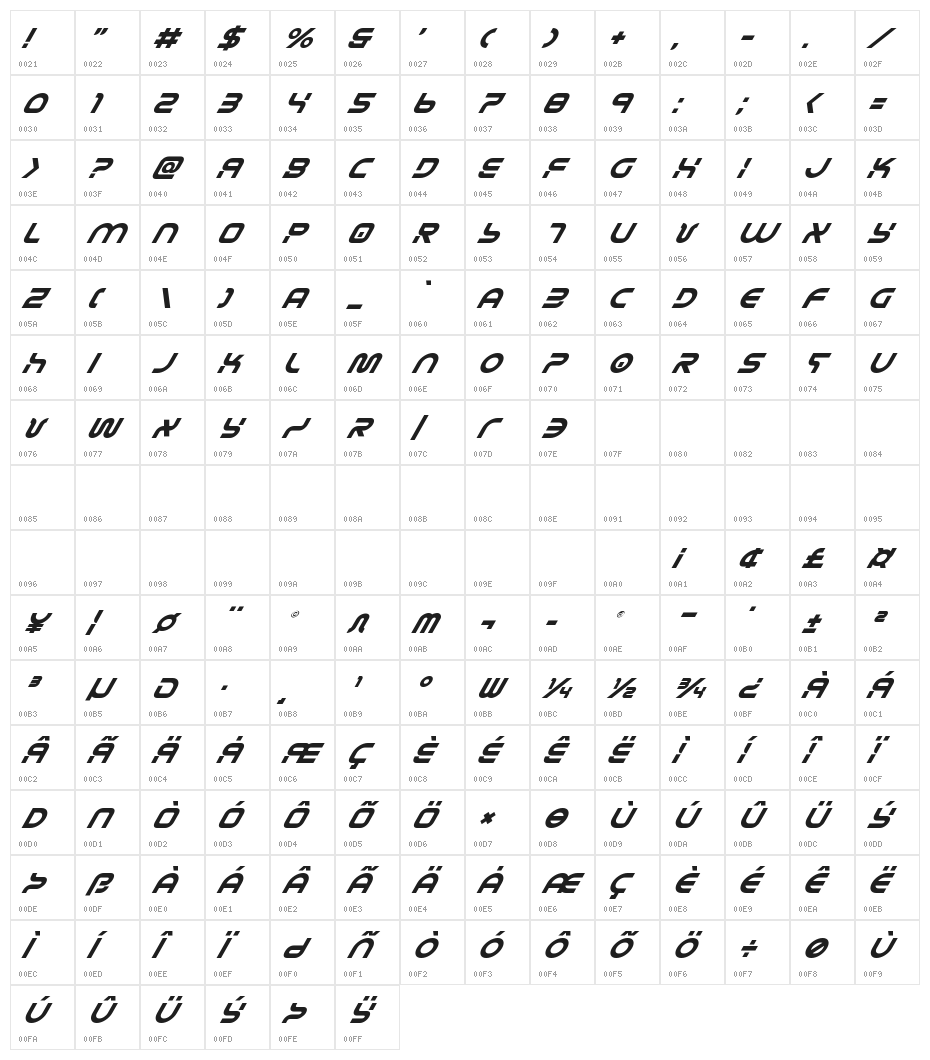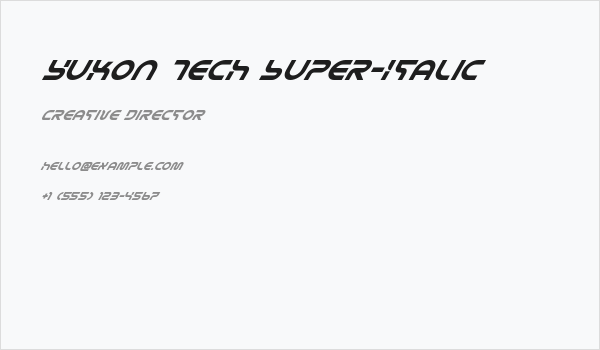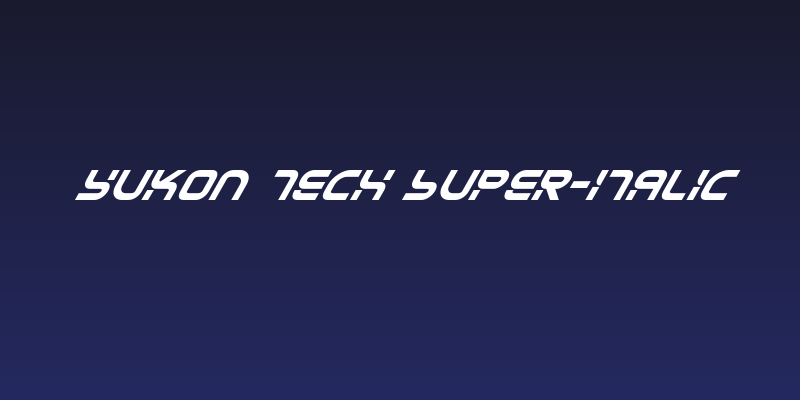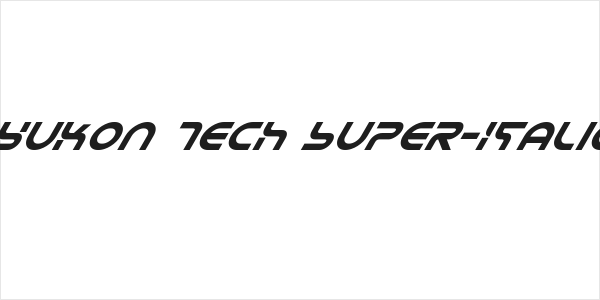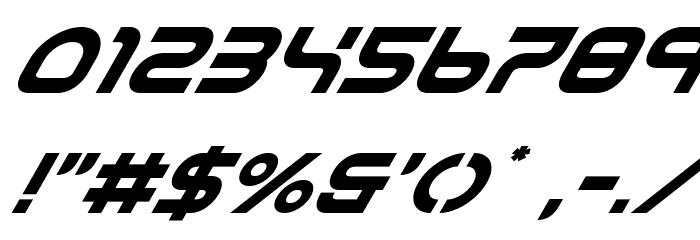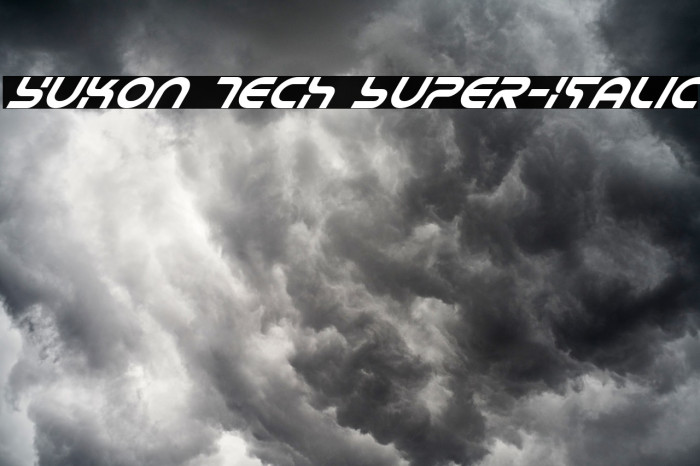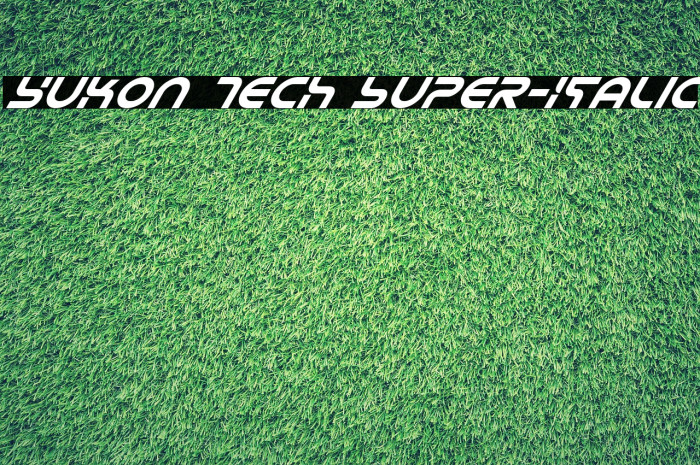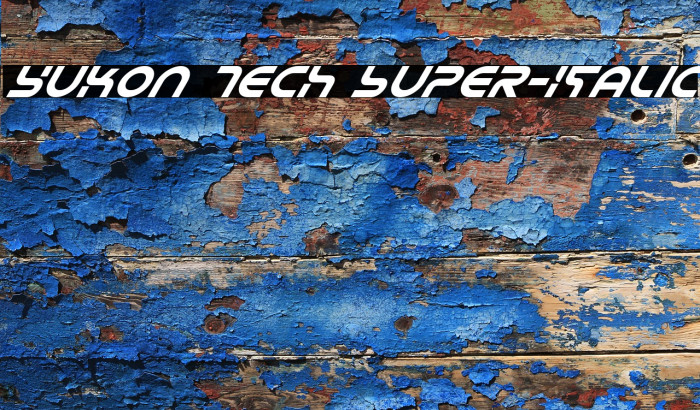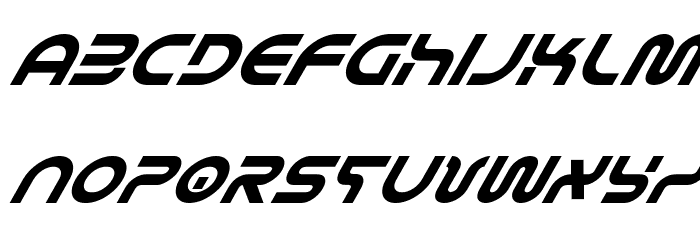
Yukon Tech Super-Italic Font
Yukon Tech Super-Italic Description
This font features a futuristic and dynamic design with a strong italic slant, giving it a sense of motion and speed. The characters are bold and have a distinct geometric style, with sharp angles and clean lines. The uppercase and lowercase letters maintain a consistent design, while the numbers and special characters complement the overall aesthetic. The font's unique style makes it suitable for projects that require a modern and tech-savvy appearance.
| Proposed Projects | Ideal for technology branding, sci-fi themed designs, video game interfaces, and modern advertising campaigns. |